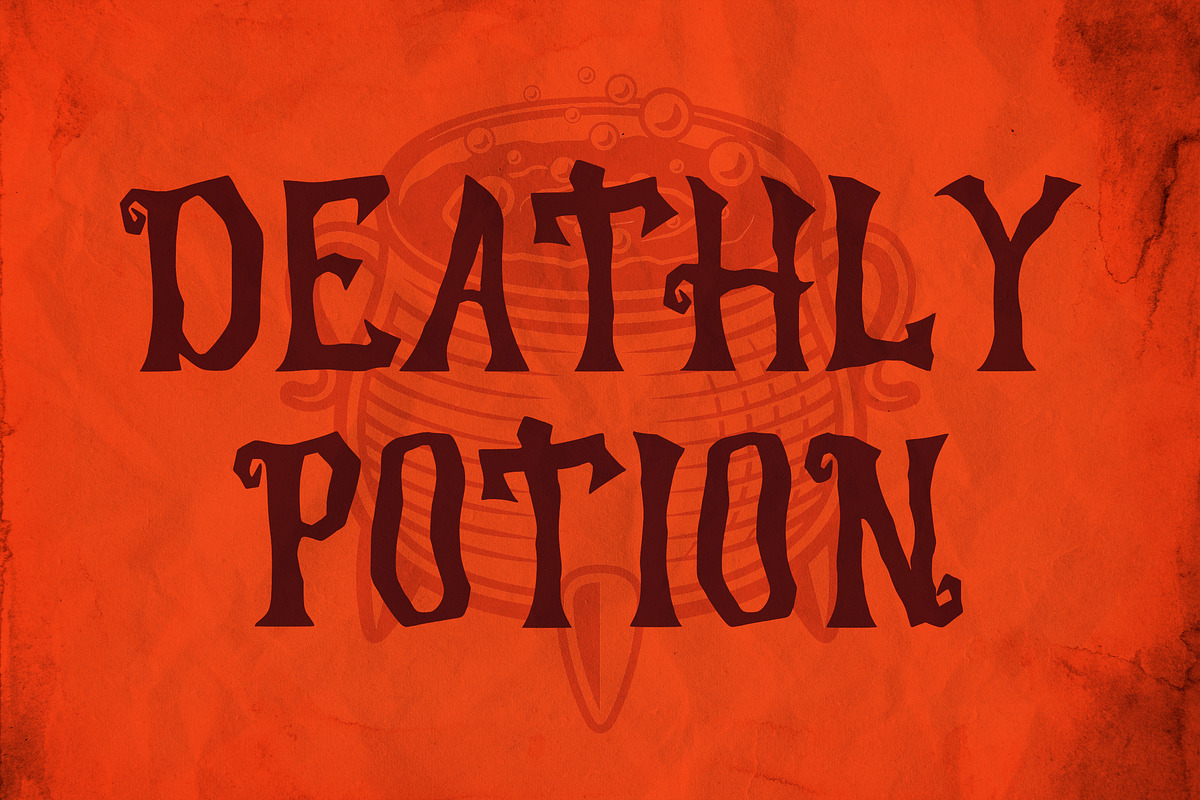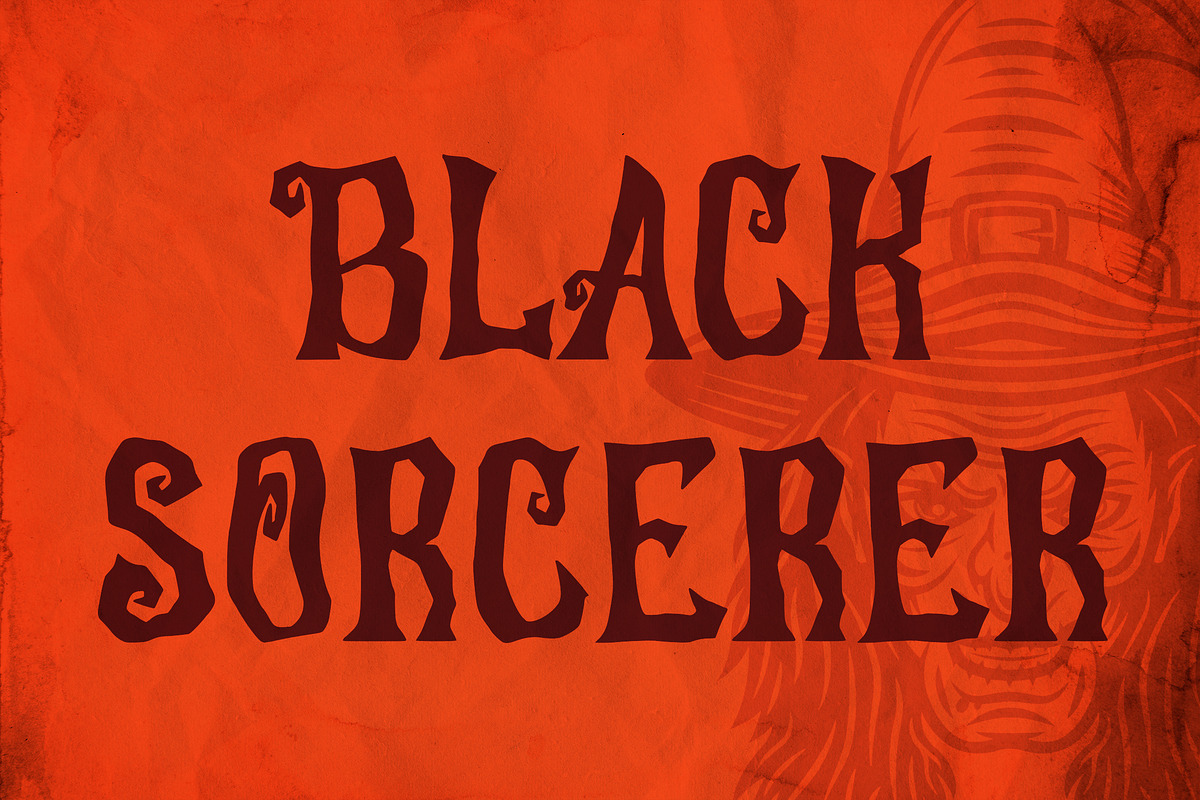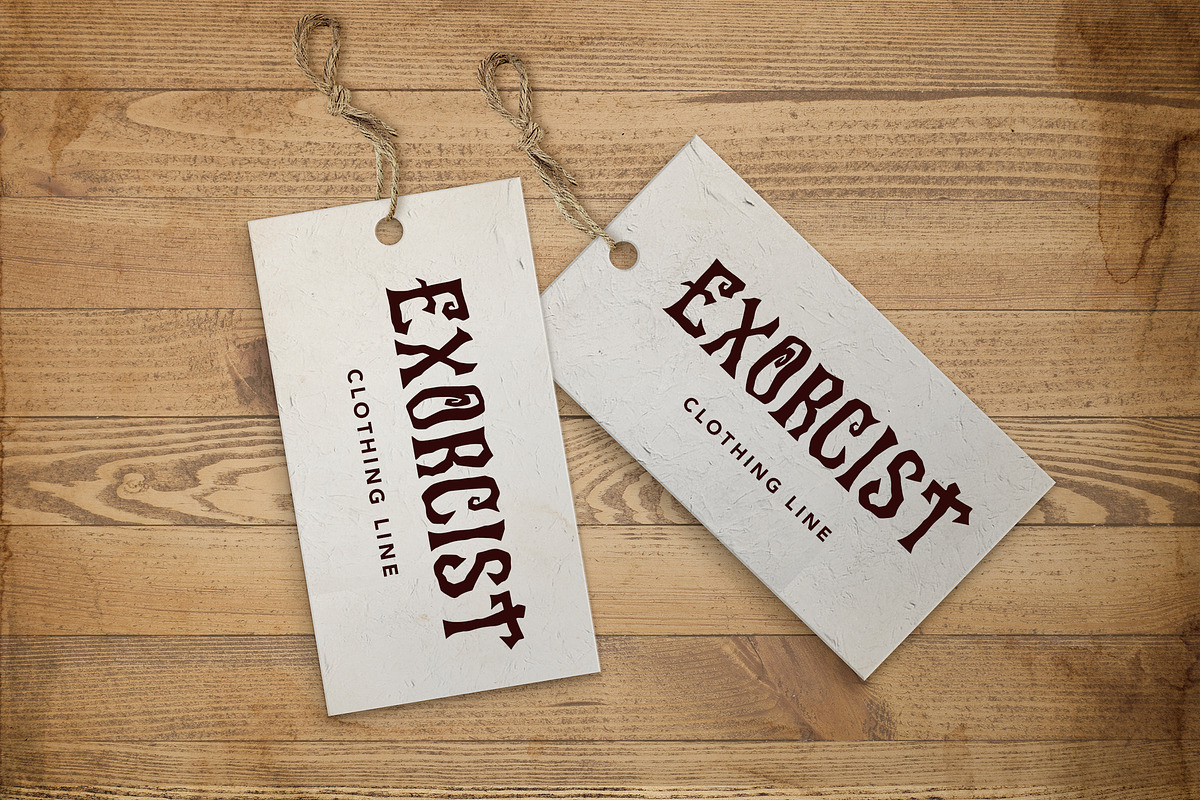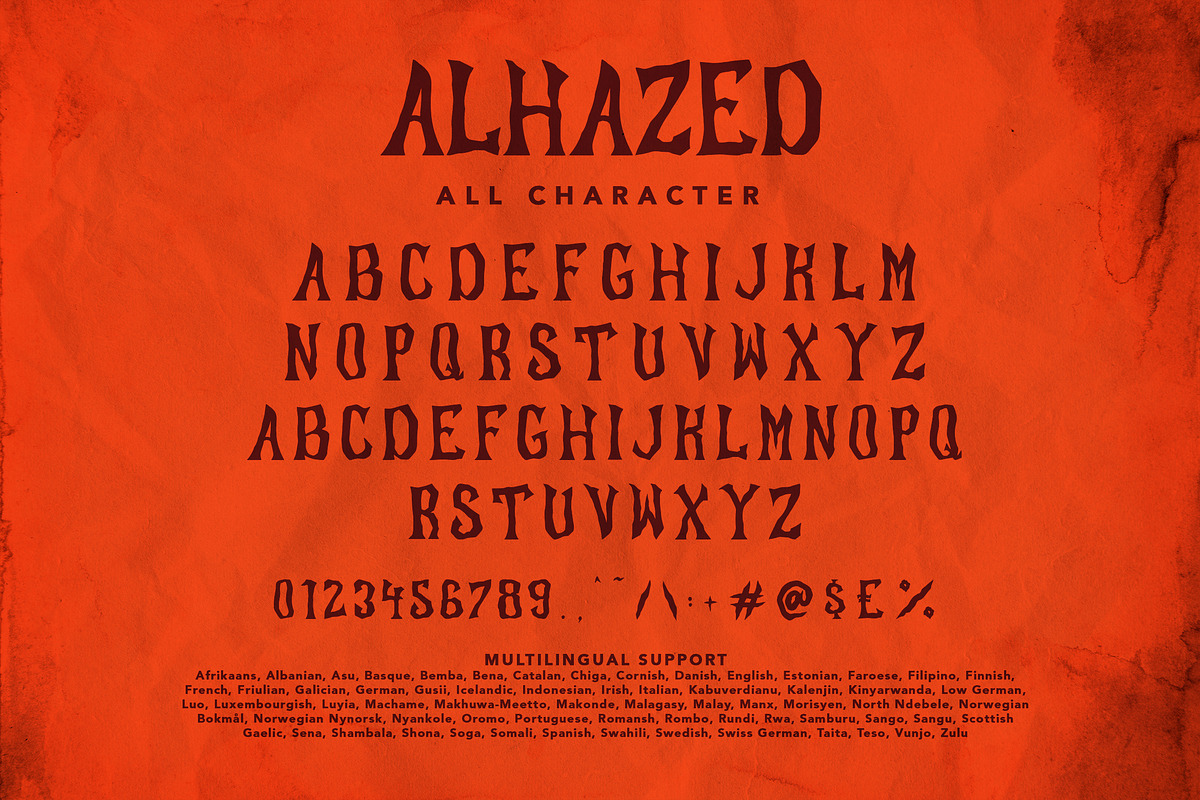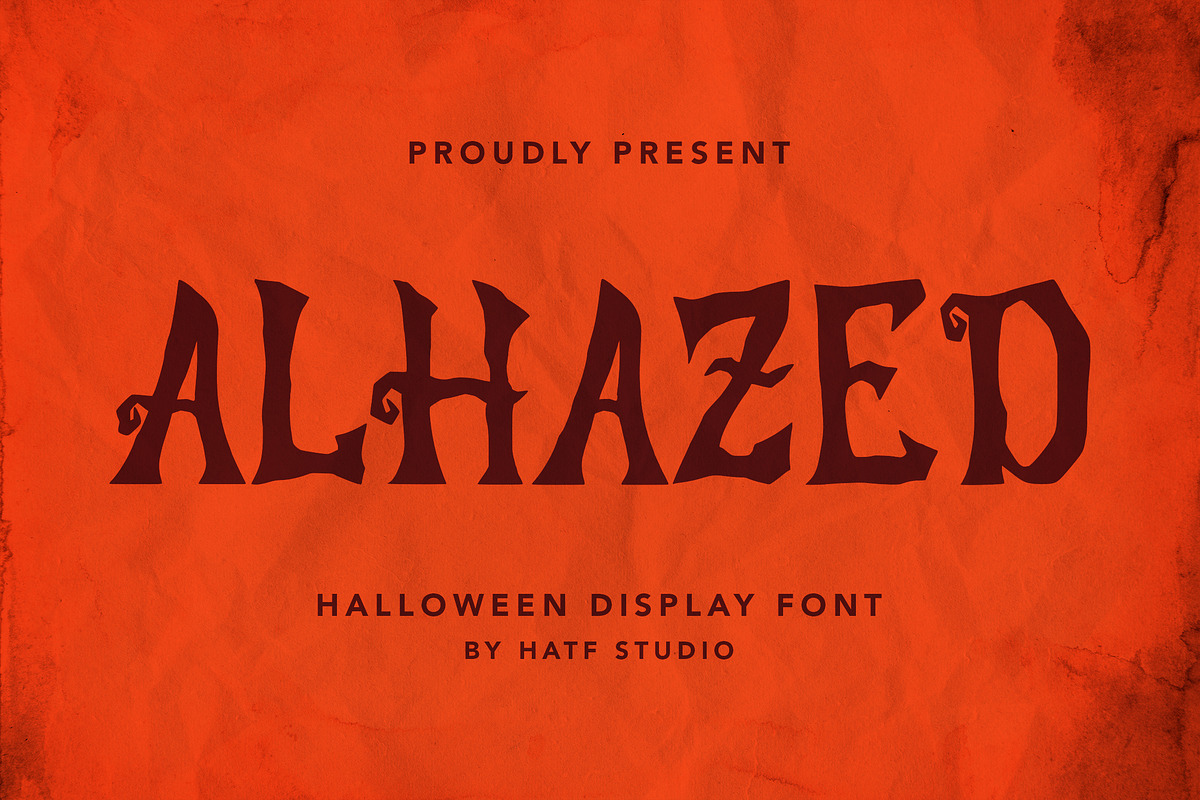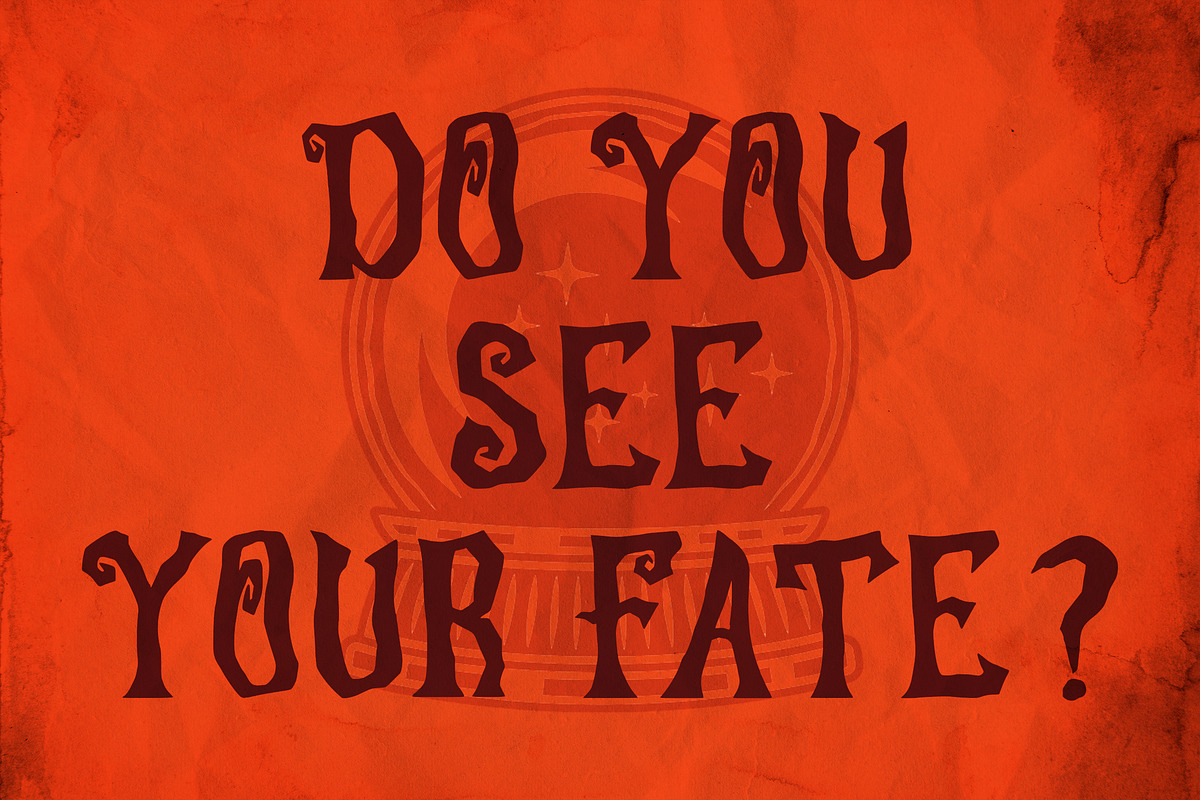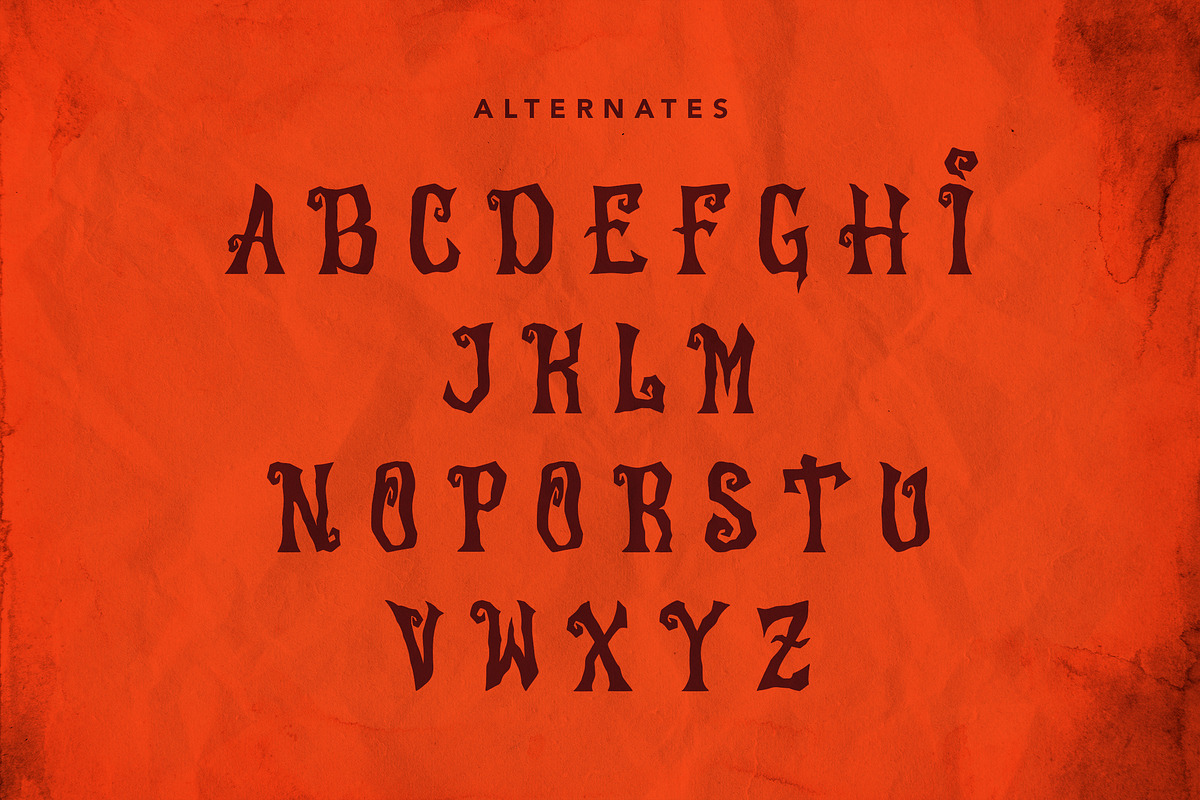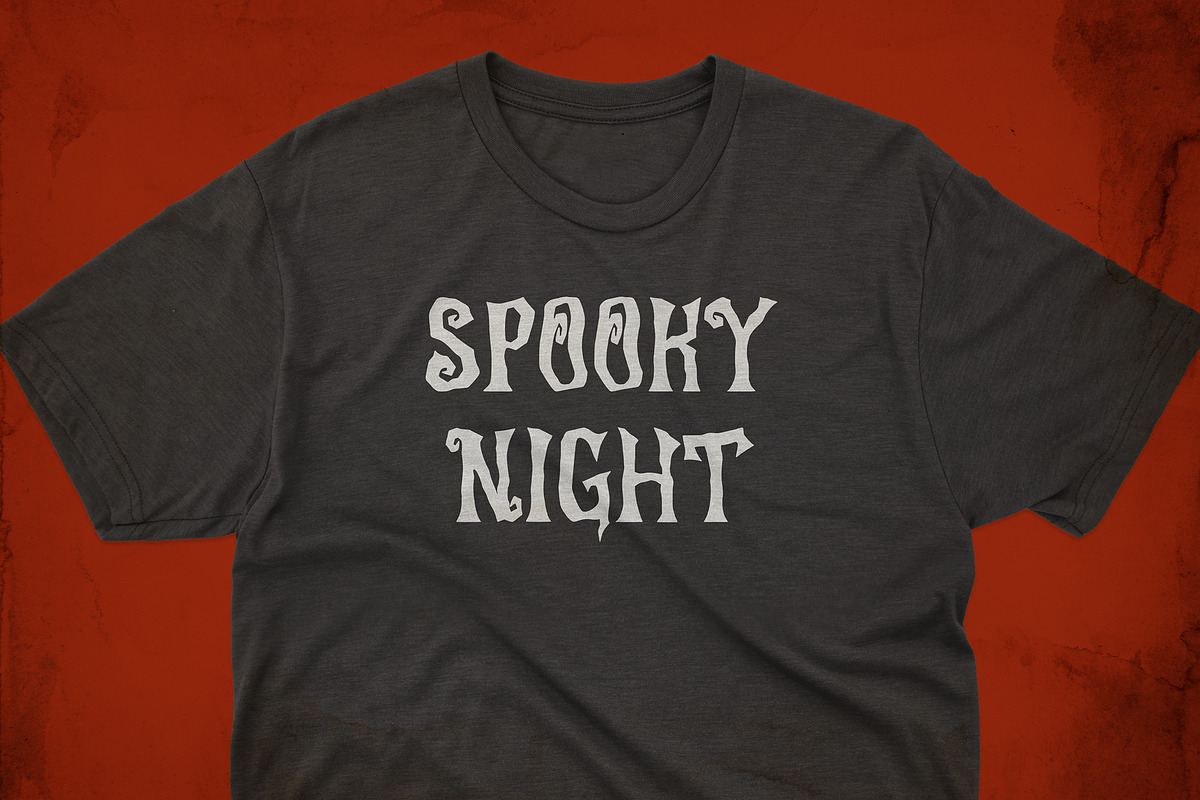
Alhazed
Is a halloween display font that is inspired by gothic and horror style because its shape is very unique and is perfect for any project that you will use with this theme.